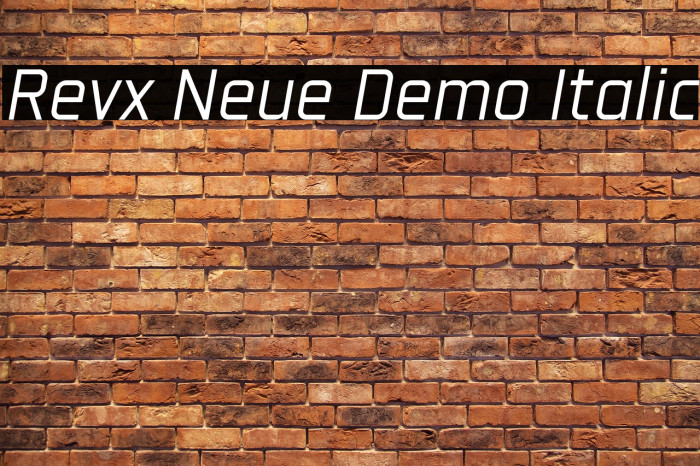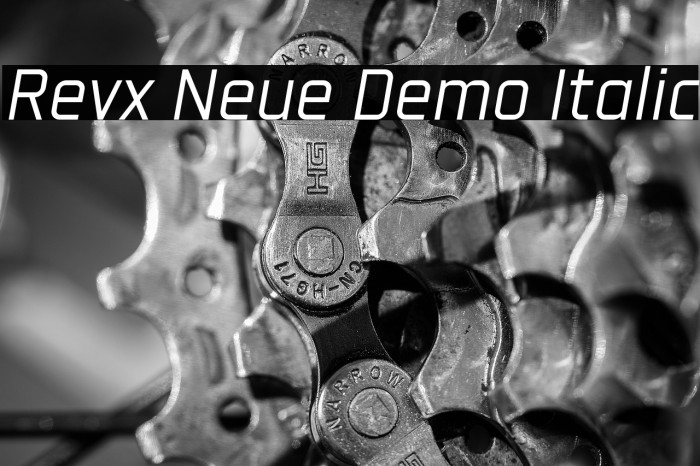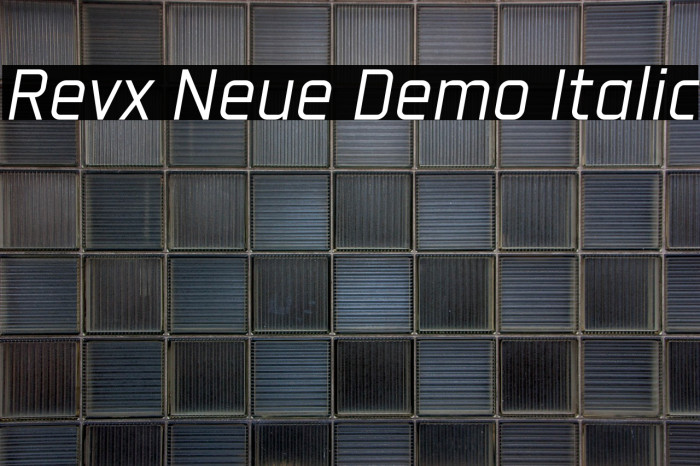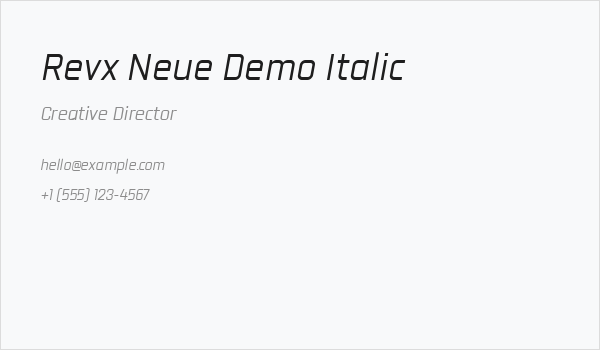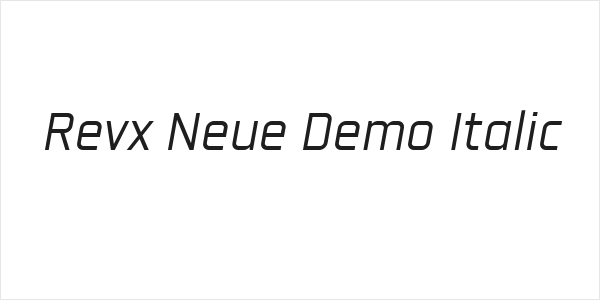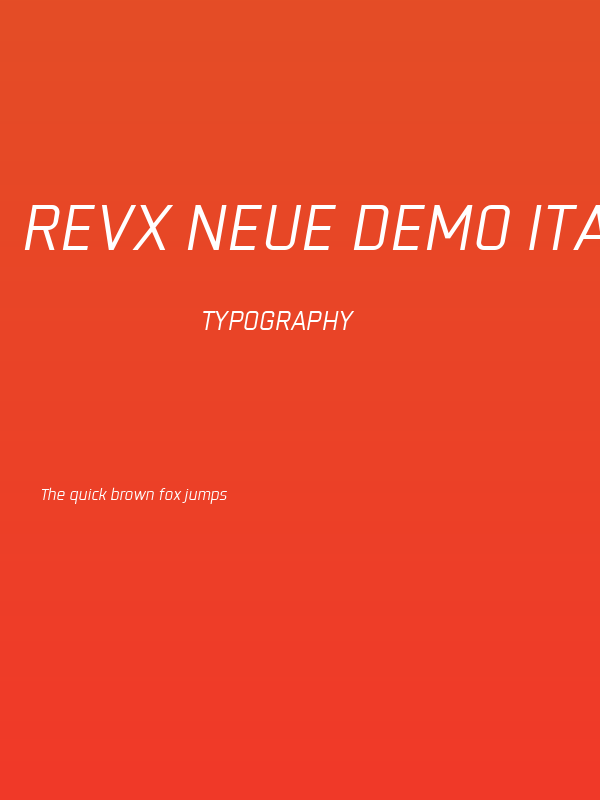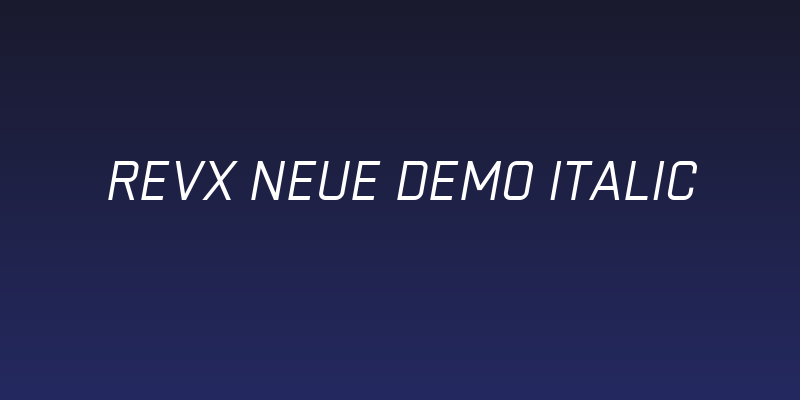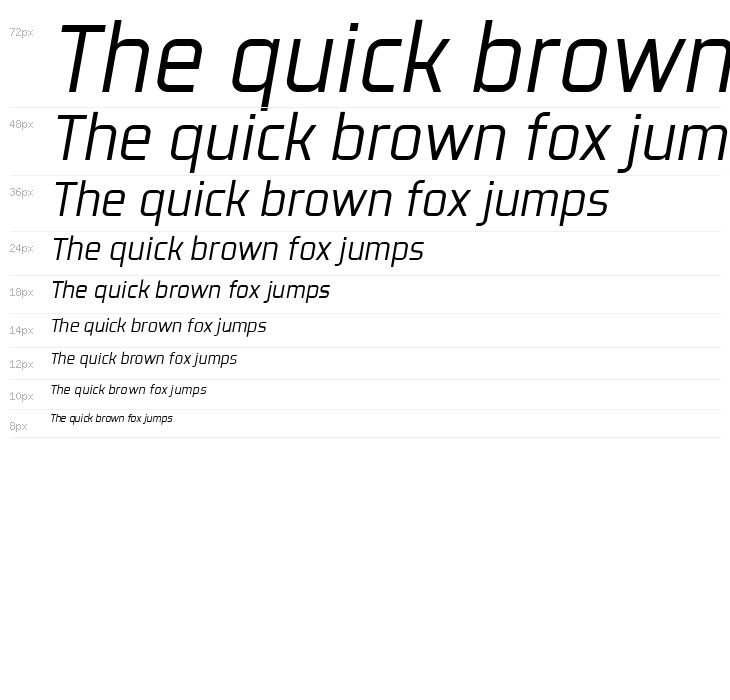
Revx Neue Demo Italic Font
Revx Neue Demo Italic Description
This font features a sleek, modern design with a distinct italic slant, giving it a dynamic and forward-moving appearance. The characters are clean and geometric, with consistent stroke widths that provide a uniform look. The uppercase and lowercase letters maintain a harmonious balance, while the numerals and special characters are crafted to match the overall aesthetic. The font's style is both professional and contemporary, making it suitable for a variety of design applications.
| Proposed Projects | Ideal for branding, advertising, digital interfaces, and editorial design where a modern and professional look is desired. |